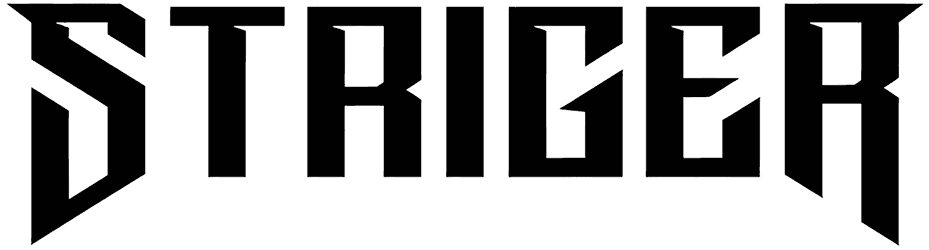
Striger Font
If you want to have a unique techno font that is able to multiply the visibility of your graphic content, then we have a special offer, such as Striger, for you. This all-caps esports font comes with an innovative form and shares a sense of dynamic, futuristic, vivacity, or risk-taking with the audience.
In addition to all of its numerous benefits, it can be perfectly matched with a wide set of artwork, including video game posters, blog posts, and headlines.